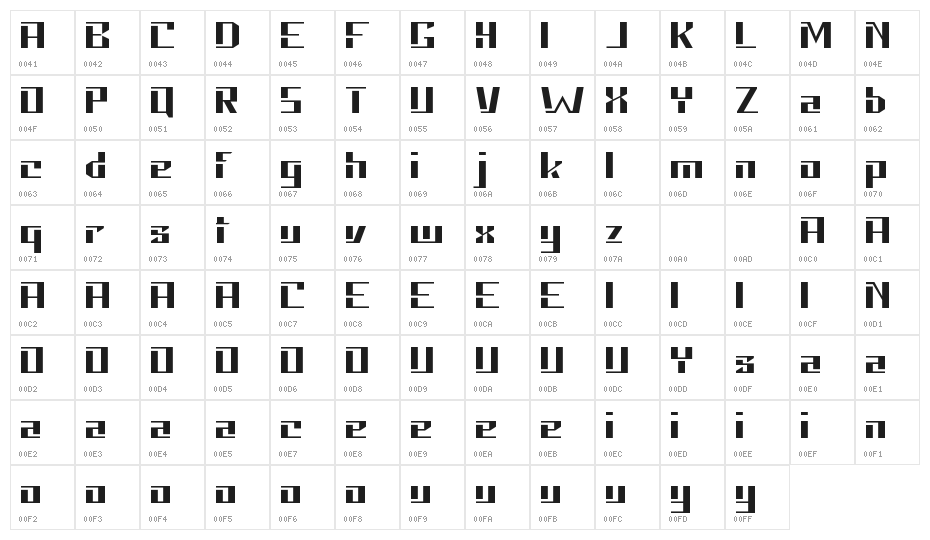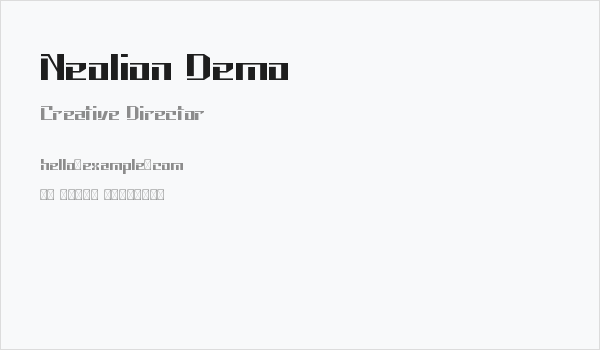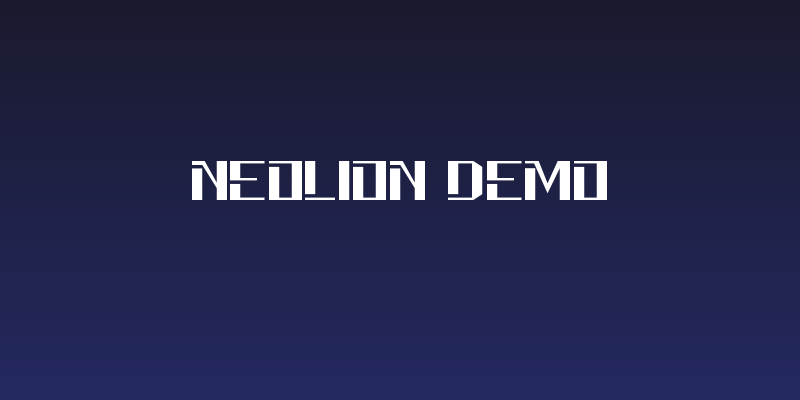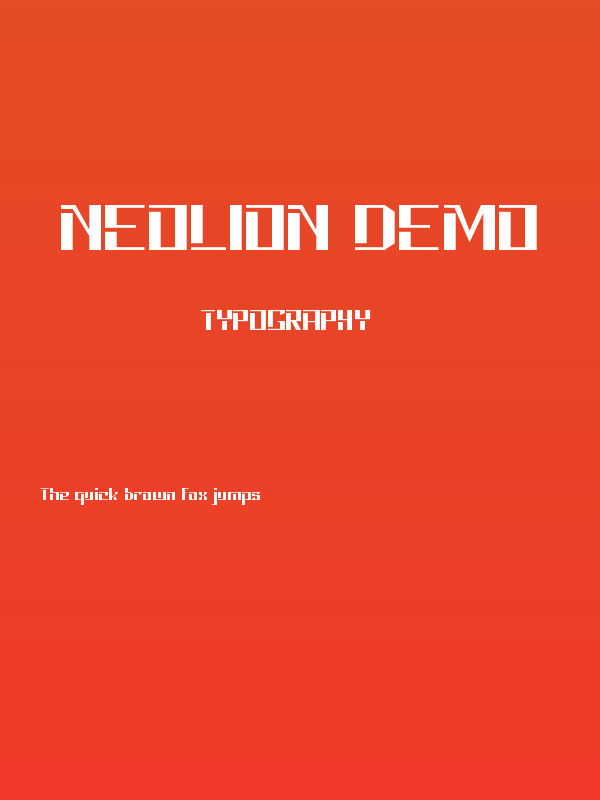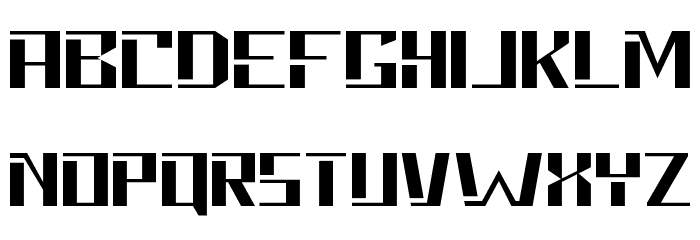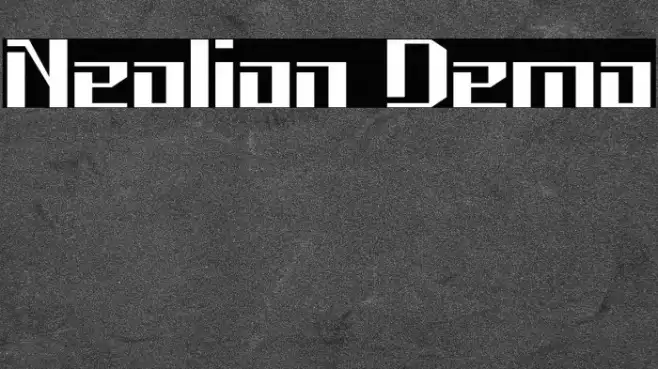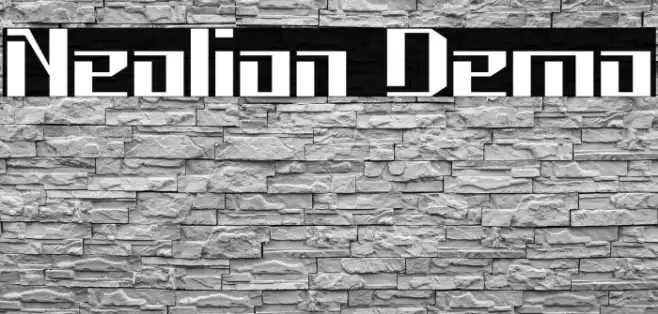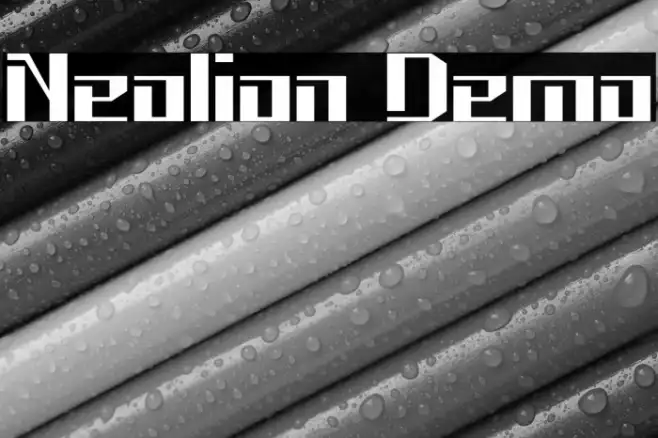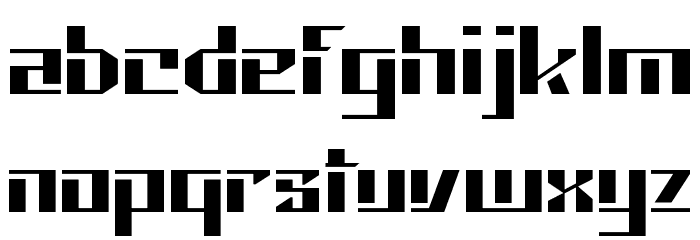
Neolion Demo Font
Neolion Demo Description
This font features a bold and geometric design with sharp angles and a futuristic aesthetic. The uppercase letters are characterized by their blocky and angular shapes, while the lowercase letters maintain a similar style with slightly more curves. The numbers are consistent with the overall geometric theme, providing a cohesive look. The special characters are designed to match the bold and striking appearance of the alphabet. This font is highly stylized, making it suitable for projects that require a modern and edgy look.
| Proposed Projects | Ideal for sci-fi themed projects, technology branding, video game titles, and modern posters. |